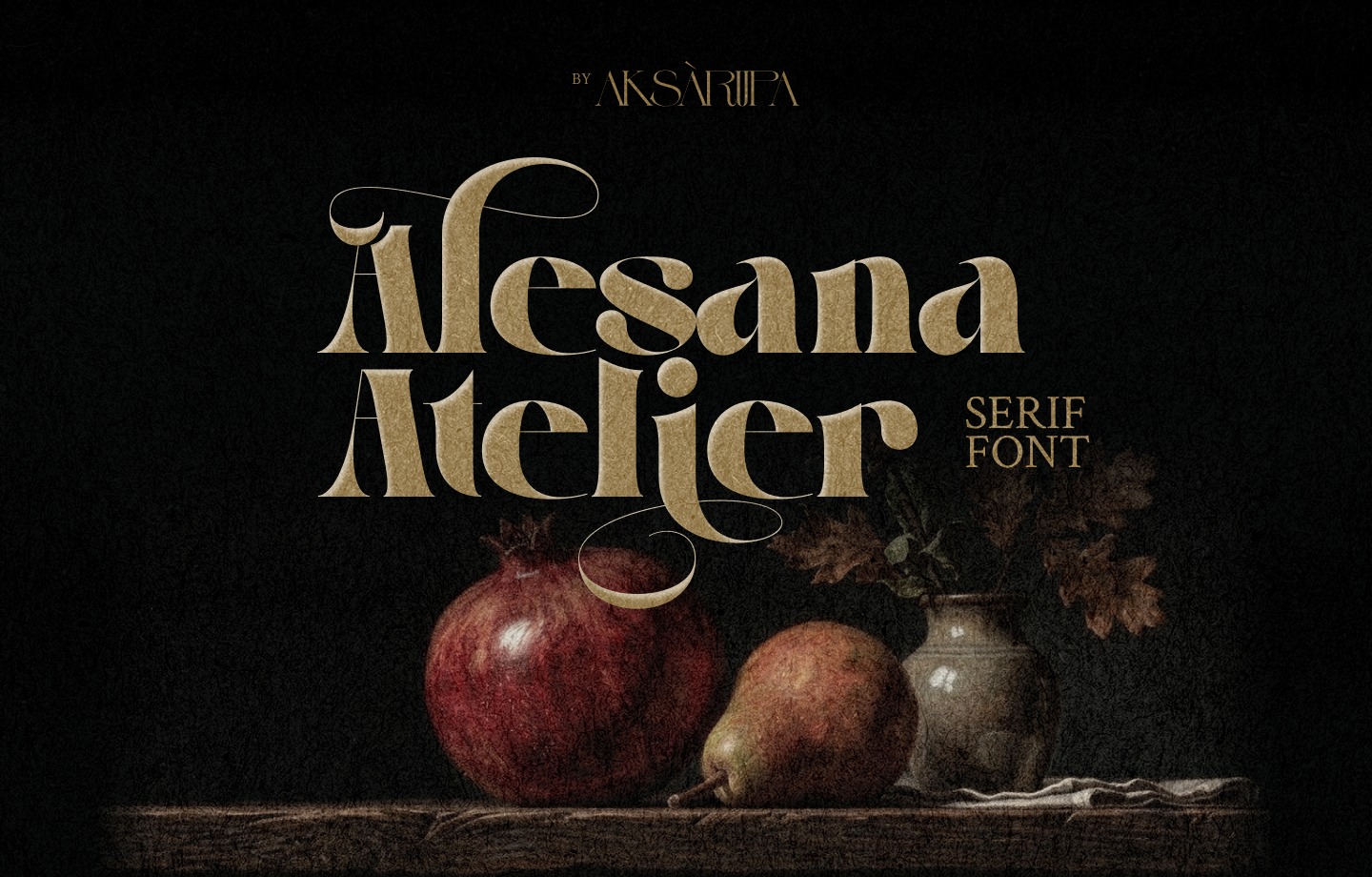
Alesana Atelier – Refined Serif Font
Alesana Atelier – Refined Serif Font is a flexible and reliable font created to fit multiple design needs, from branding and packaging to social media and editorial layouts. Alesana Atelier is a modern and awesome display font with a natural style. This font is suitable for your current or classic design: Signature. Logo. Branding. Invitation. Blog Headline and many more.